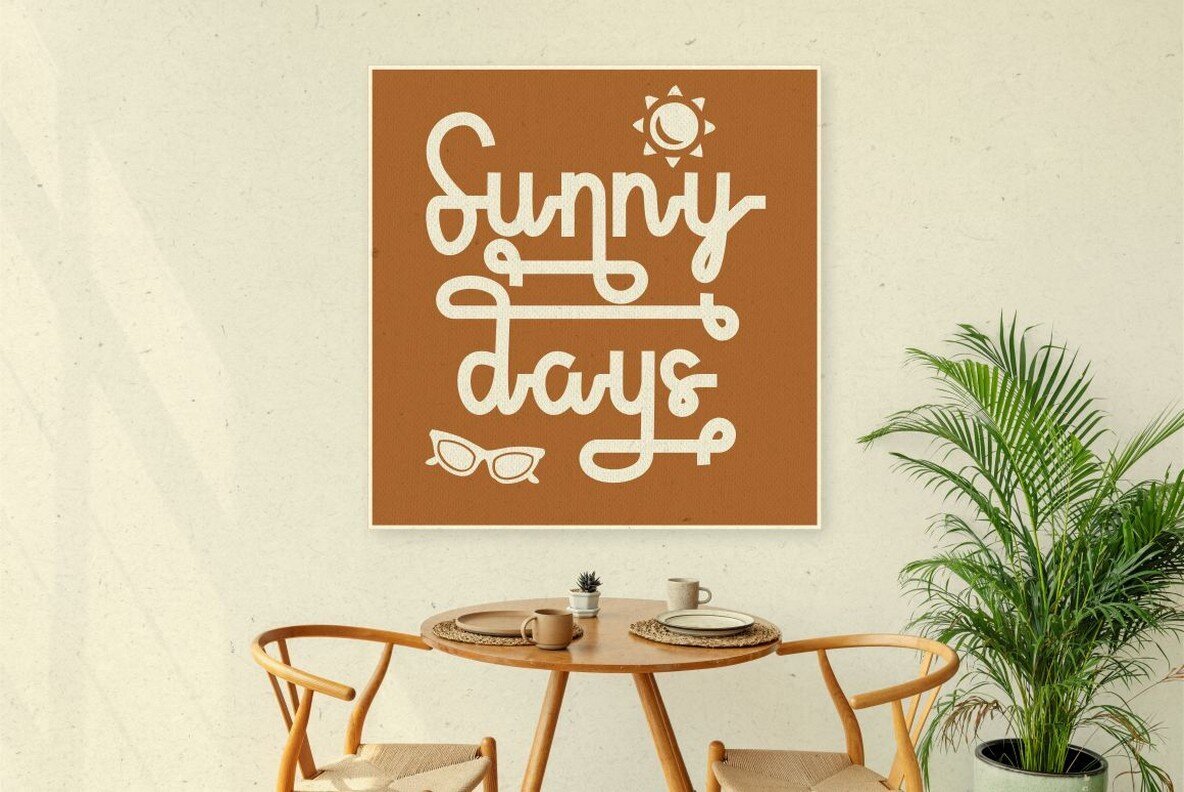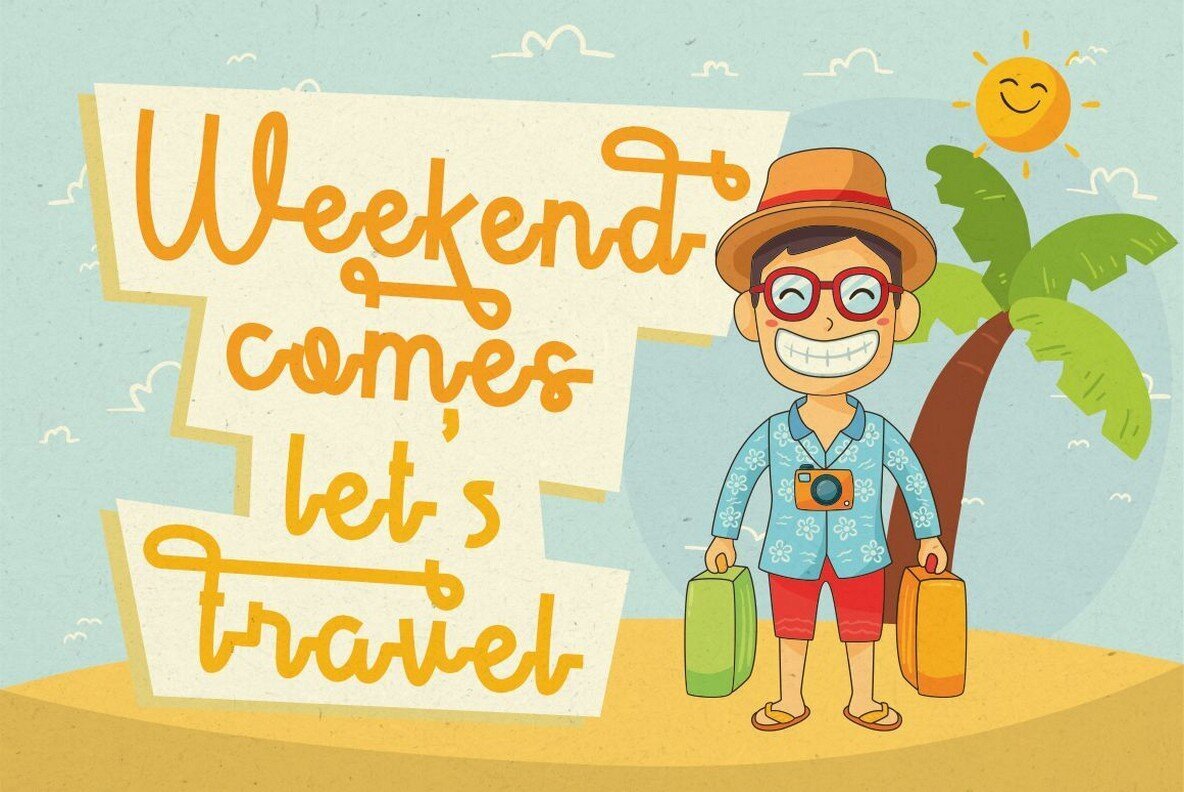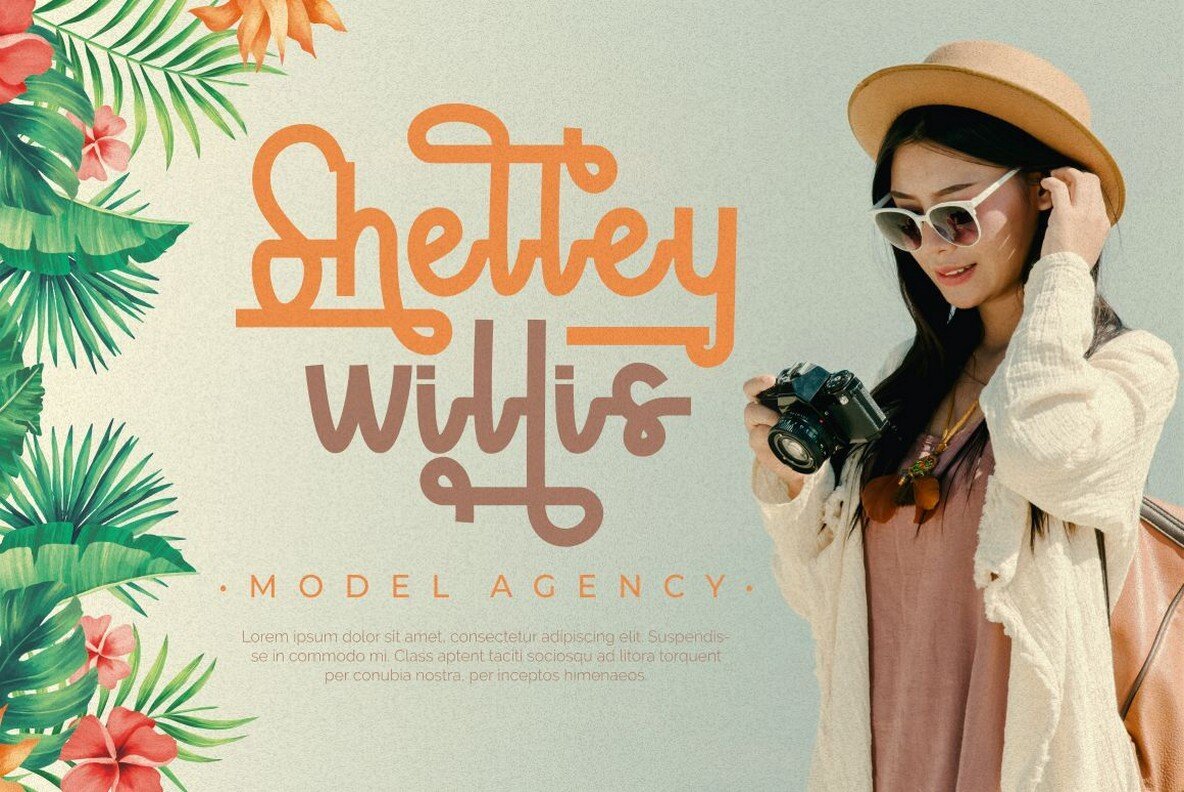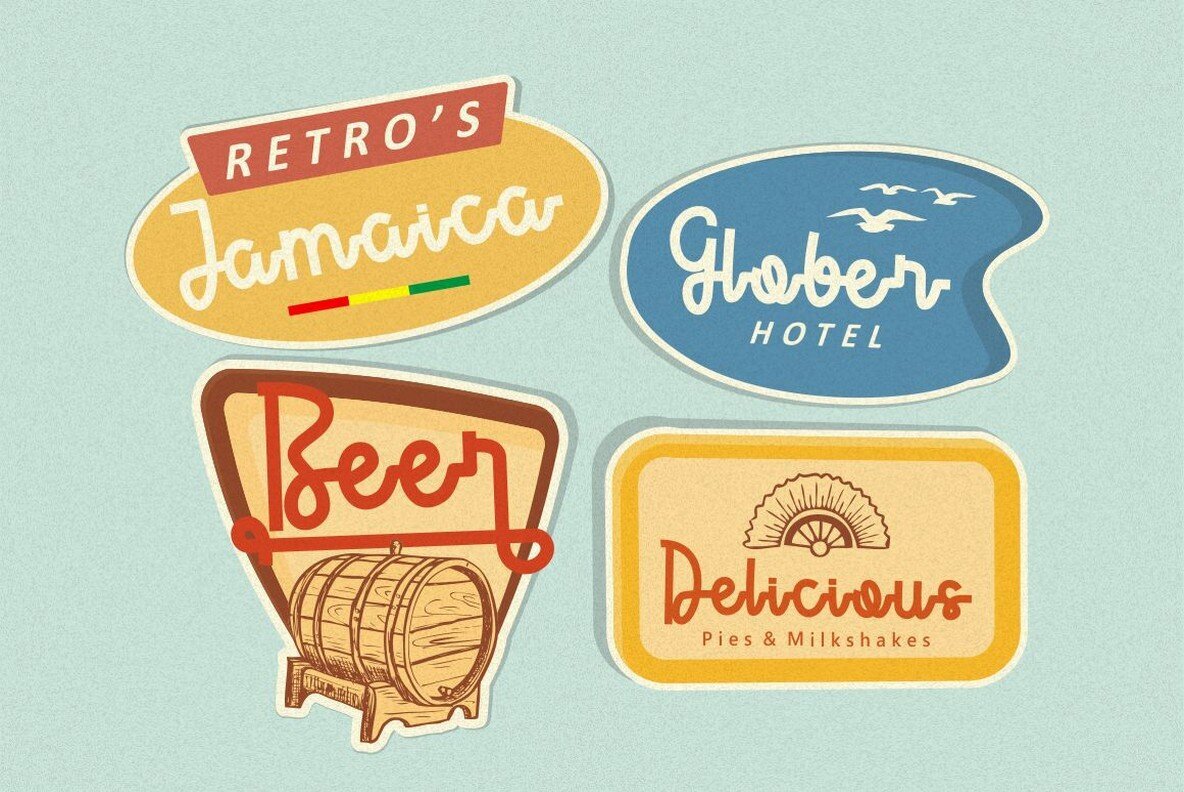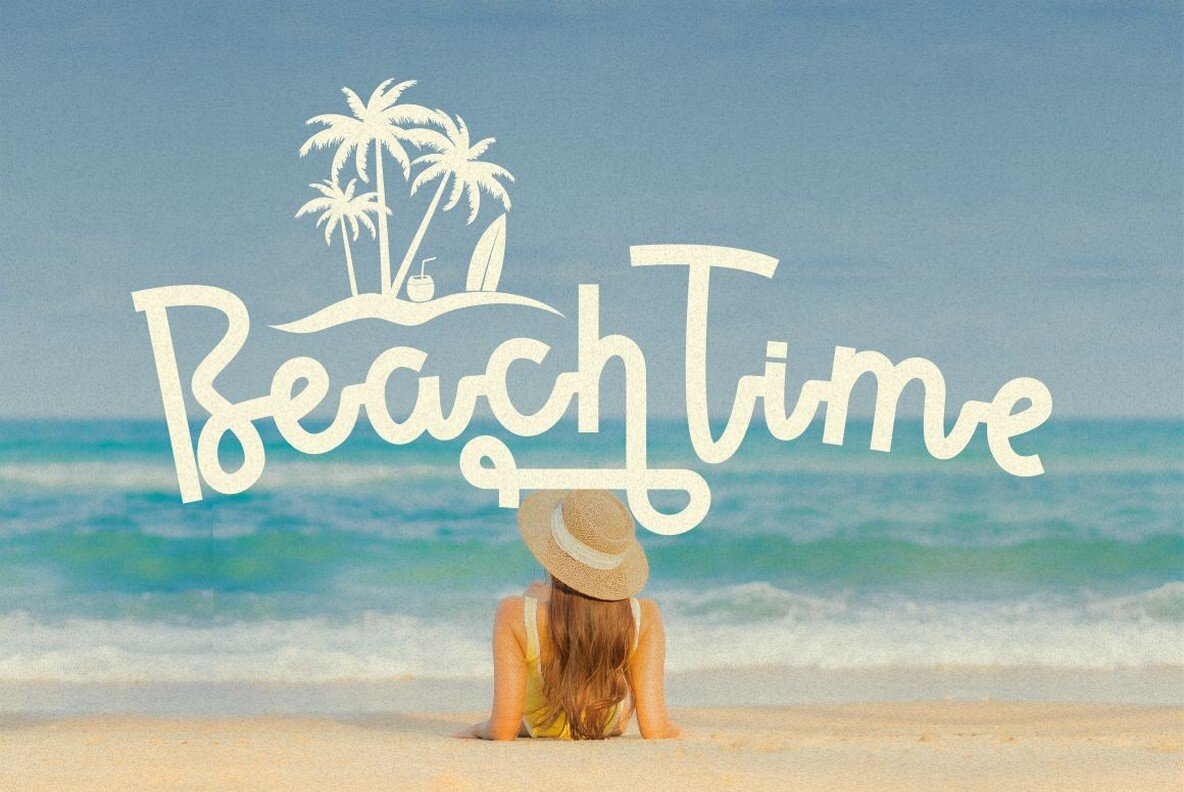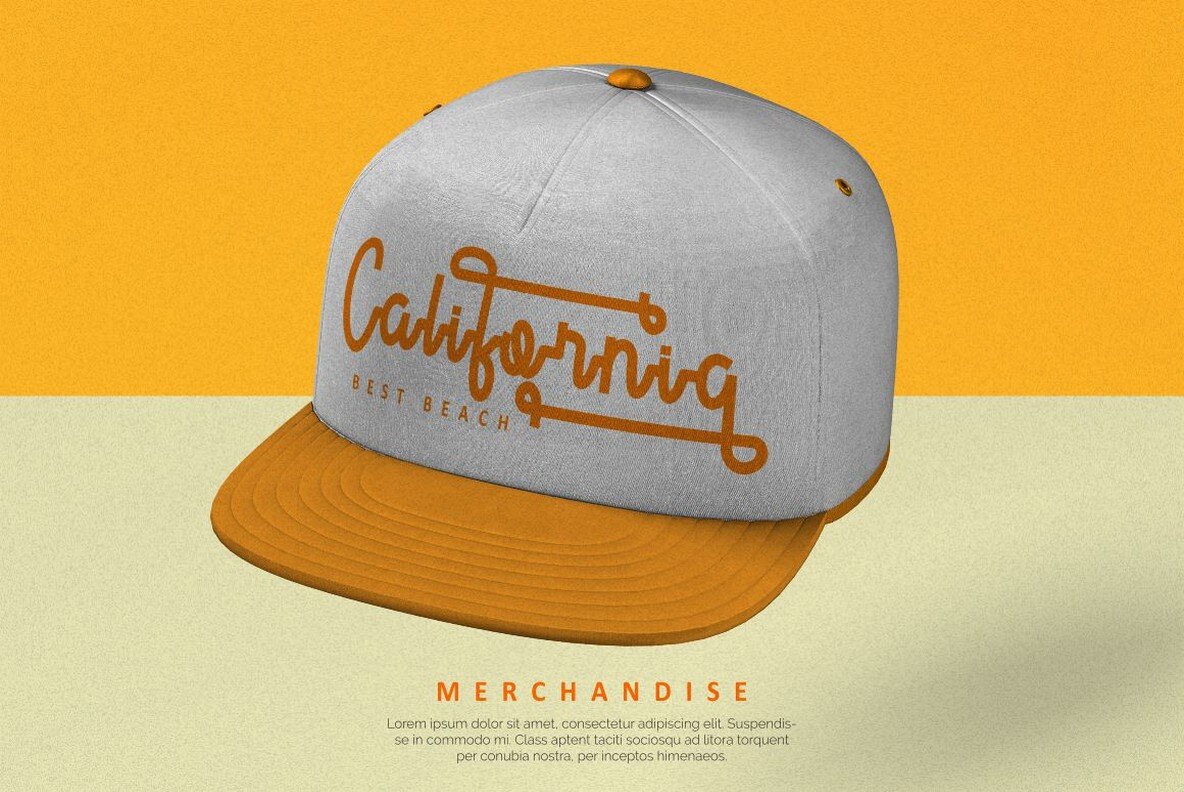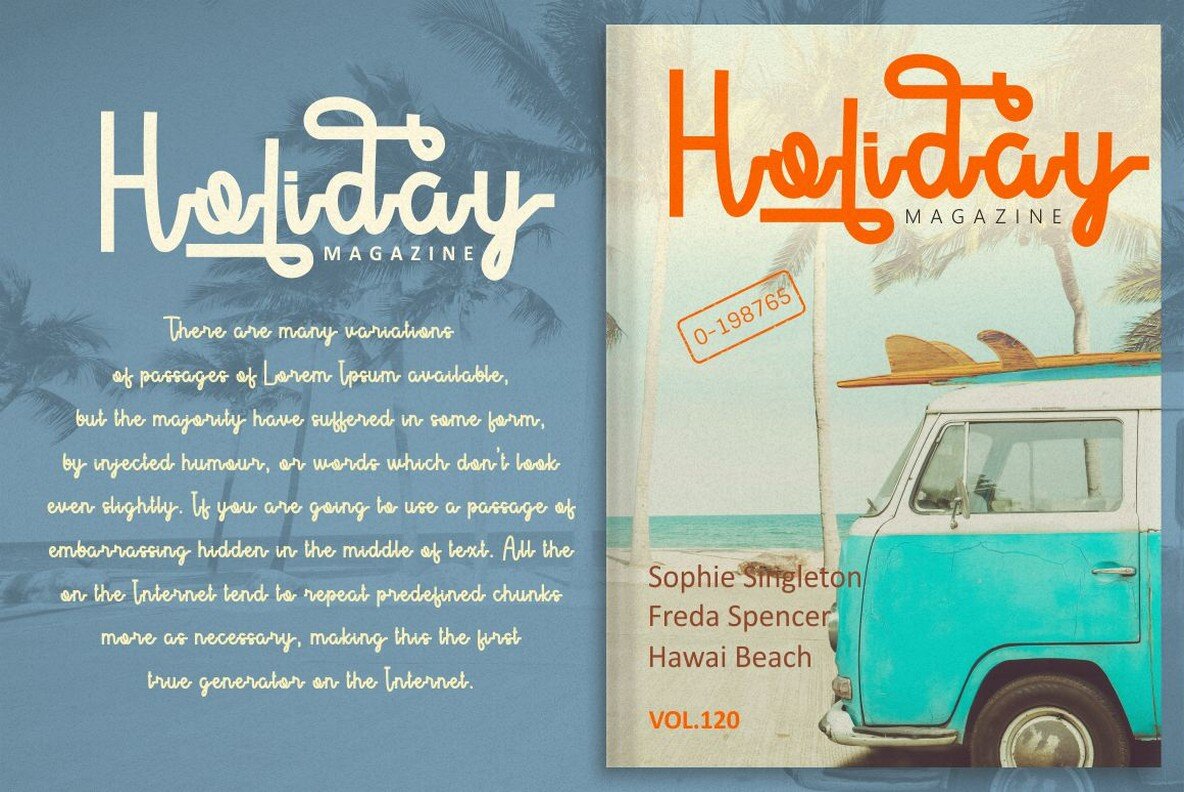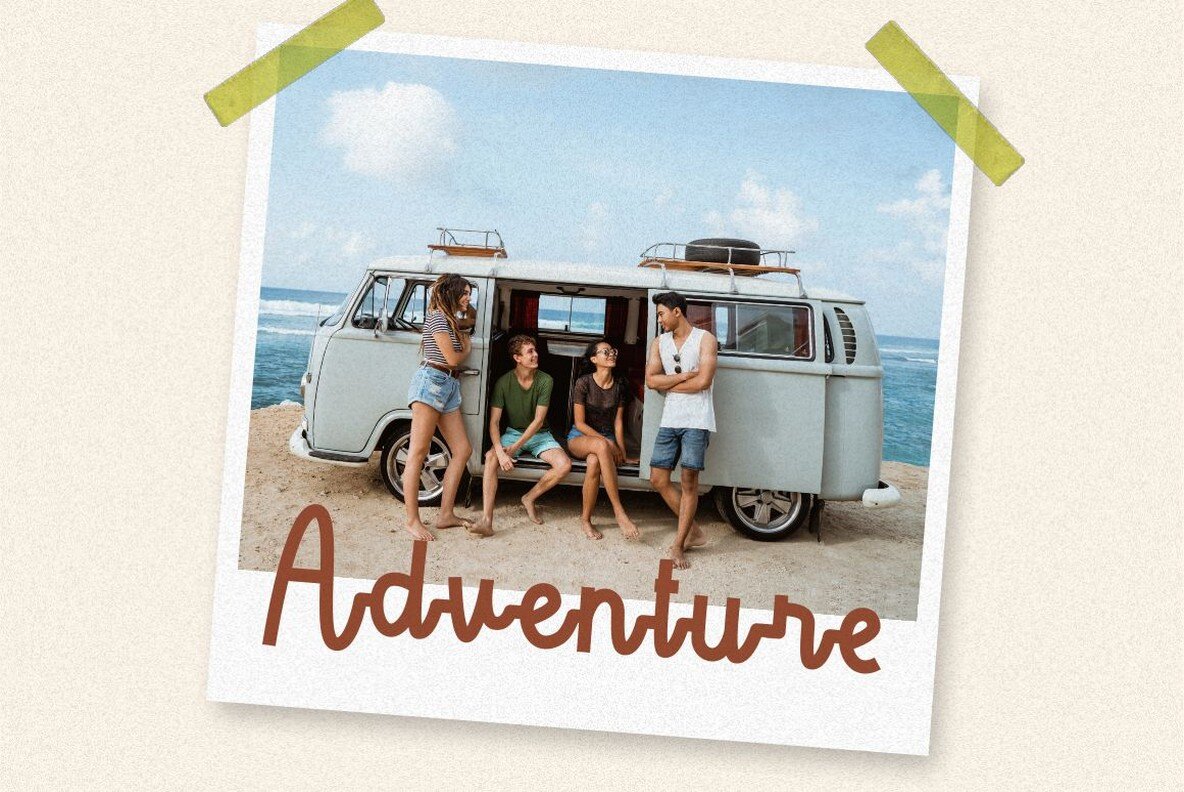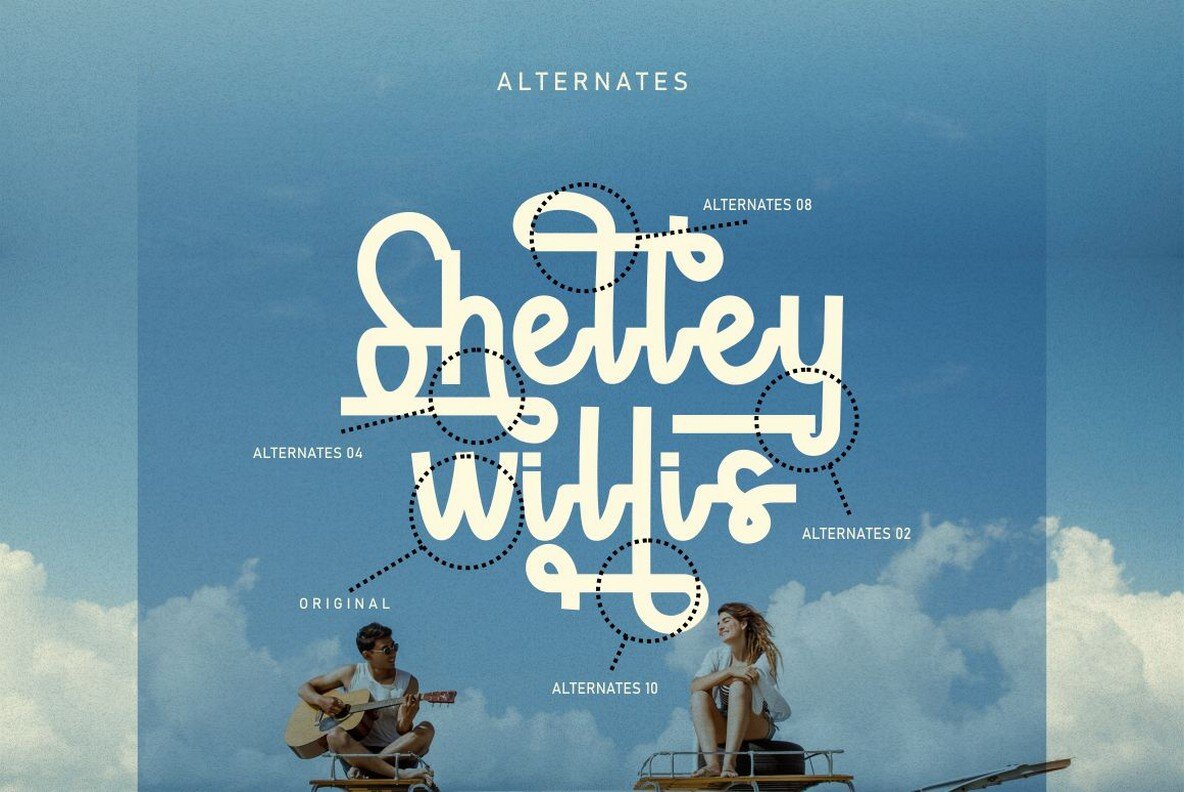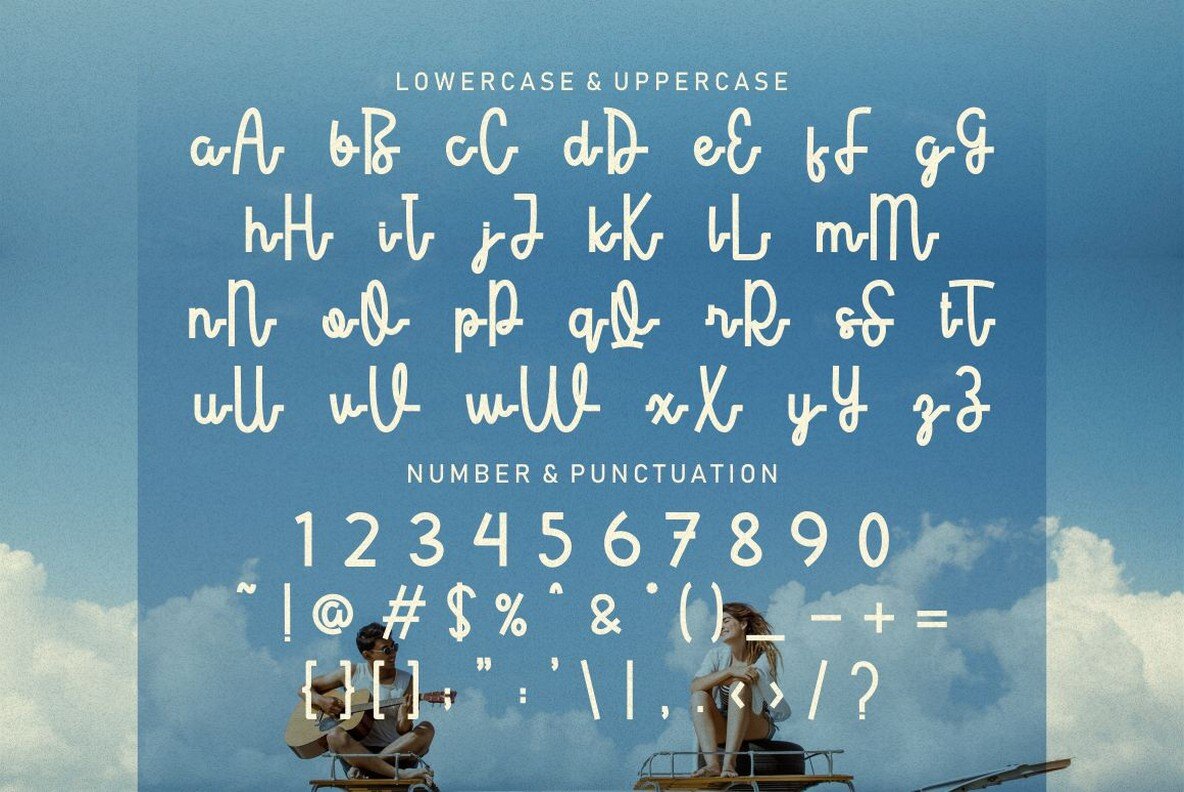
Summer Roadtrip: Vintage Script for Diverse Applications
Summer Roadtrip offers a captivating blend of vintage charm and modern versatility, crafted for designers seeking authentic hand-lettered aesthetics. This script font provides numerous opentype features and alternates, allowing for nuanced customization and varied expressions in every project.
From logos to book covers, Summer Roadtrip adapts effortlessly across a range of applications. Whether crafting for print or digital, its availability in both clean and rough versions ensures adaptability to different stylistic demands.
• Opentype features and alternates for customization
• Suitable for logos, branding, and packaging
• Multiple language support for global projects